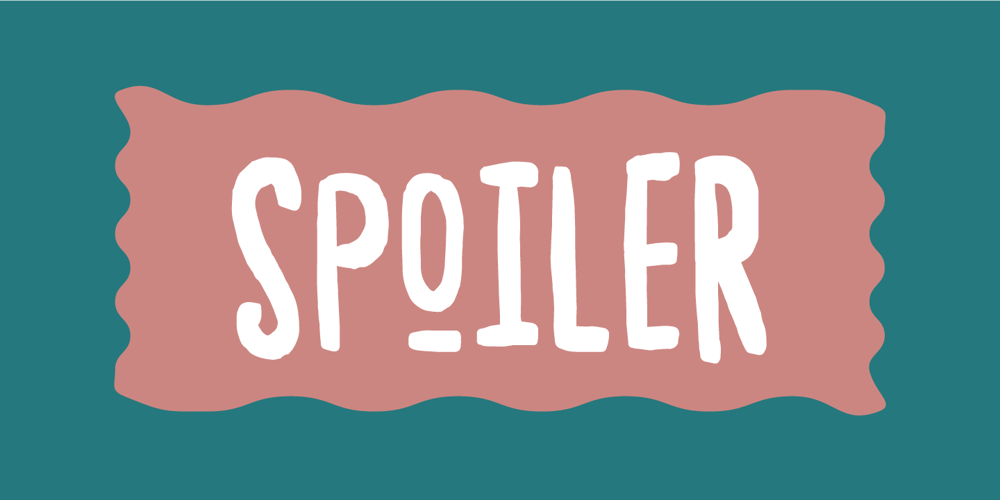
Spoiler Font Family was designed by Jakob Fischer and published by PizzaDude.dk. Spoiler contains 2 styles and family package options. Now here’s a font that won’t spoil anything!It’s my ALL CAPS brush font with slightly uneven and quirky lines. Just enough to make font look lively and fresh, but not overdoing it. Every letter has 7 different versions, which automatically cycles as you type – and I have added an extra SMALL CAPS for each letter. Exchange every letter here and there with SMALL CAPS, and you will get an even more authentic result!